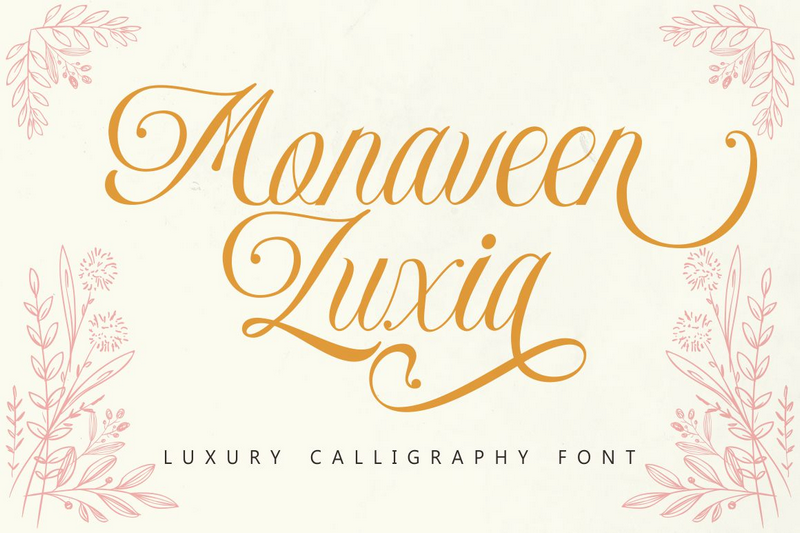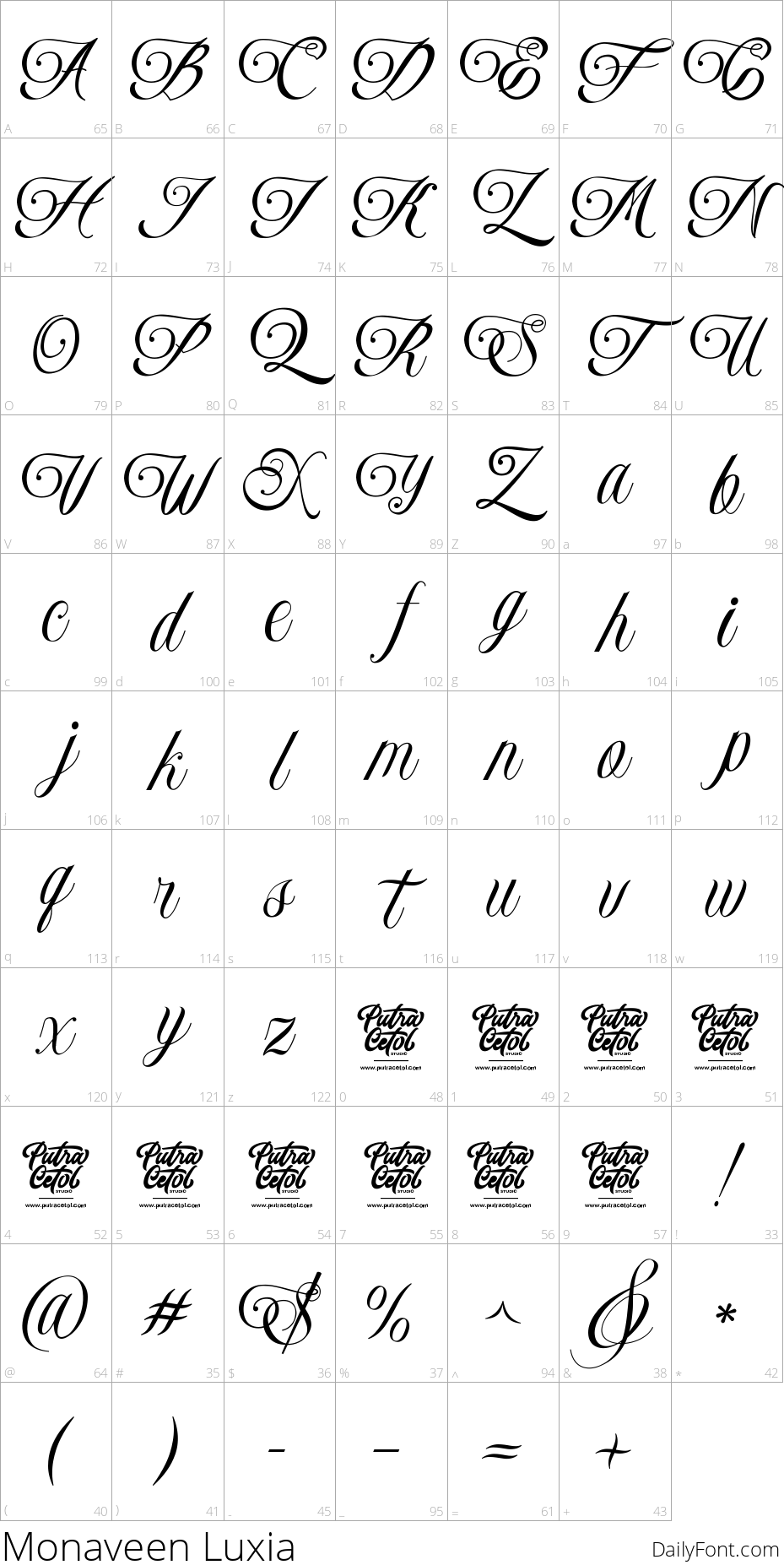
Monaveen Luxia
Looking for a sophisticated and refined handwritten font to elevate your design? Look no further than this elegant script font. With its delicate and flowing strokes, this font exudes a sense of refinement and luxury, making it perfect for use in high-end branding, editorial design, or wedding invitations.
The beautiful balance of characters in this font ensures that it will pair well with a wide range of designs, from modern to traditional. Whether you're looking to add a touch of whimsy or a dash of sophistication, this font is sure to impress.
And the best part? This font is PUA encoded, making it easy to access all the glyphs and swashes at your fingertips. With so many design options available, you'll be able to create unique and eye-catching designs that showcase your personal style.
This font is perfect for designers looking to add a touch of elegance to their work, including those working in fashion, beauty, or luxury goods. It's also ideal for anyone seeking to create high-end branding materials, such as logos, business cards, or marketing collateral.